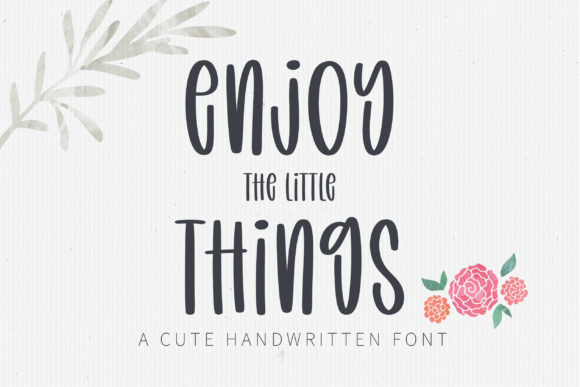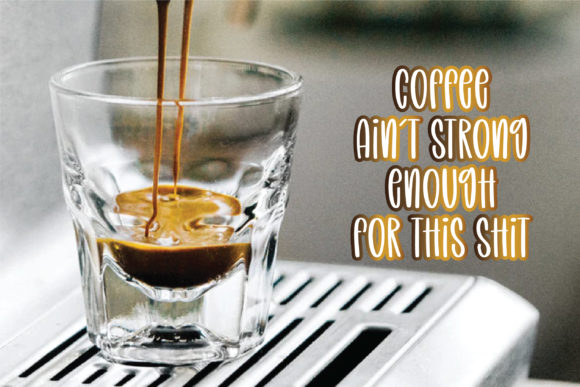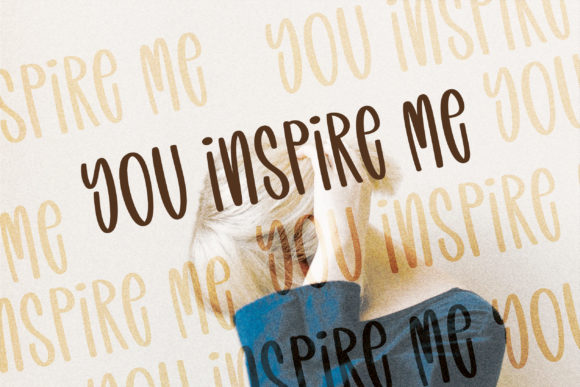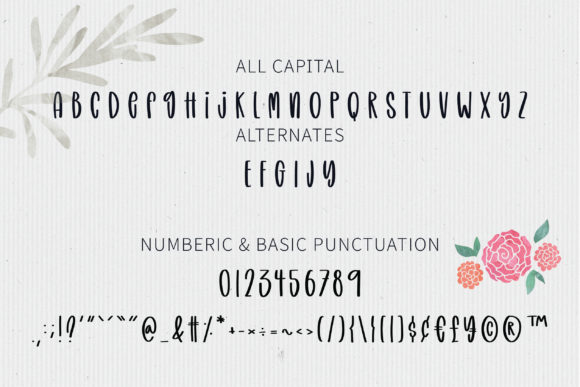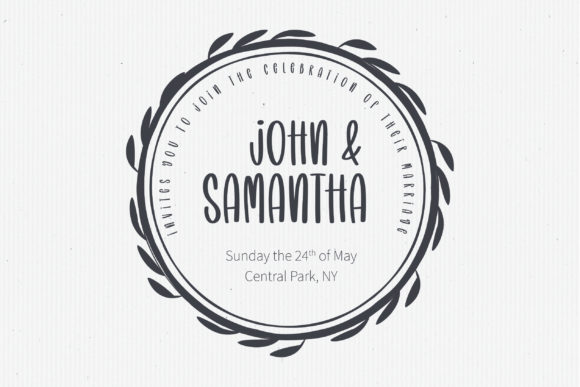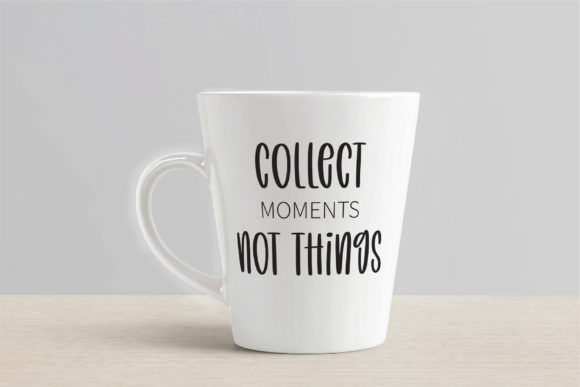
About Enjoy the Little Things Font
“Enjoy the Little Things”: A Cute and Timeless Handwritten Font
Introducing “Enjoy the Little Things,” a font that exudes cuteness and timelessness in every stroke. With its natural and unique style, “Enjoy the Little Things” is a perfect fit for a wide range of designs, and the only limit is your imagination!
The charm of “Enjoy the Little Things” lies in its cute and timeless appeal. Each letter is thoughtfully designed, capturing the essence of warmth and simplicity.
Designing with “Enjoy the Little Things” is a joyous experience. Its handwritten touch and charming characters bring authenticity to your creations, making them stand out with a heartwarming and classic vibe.
This font complements various projects seamlessly. Whether you’re designing adorable greeting cards, inspirational quotes, playful invitations, or any other design that requires a touch of cuteness and timelessness, “Enjoy the Little Things” delivers with grace.
Unleash your creativity with “Enjoy the Little Things.” Its natural and unique style allows you to create designs that resonate with joy and nostalgia, evoking emotions that touch the heart.
Embrace the magic of “Enjoy the Little Things.” Its cute and timeless allure adds a touch of authenticity to your projects, creating designs that bring a smile to faces and warm the soul.
In conclusion, “Enjoy the Little Things” is more than just a font; it’s a heartwarming companion that reminds us to cherish the simple joys in life. With its natural and unique style, “Enjoy the Little Things” opens the door to endless creative possibilities. Embrace its cuteness and timelessness, and let it bring joy and warmth to your favorite projects and beyond. For designs that capture the essence of the little things that matter, “Enjoy the Little Things” is the font that adds a touch of timeless charm. Let “Enjoy the Little Things” be the spark that ignites your creativity and spreads joy in every design you create.